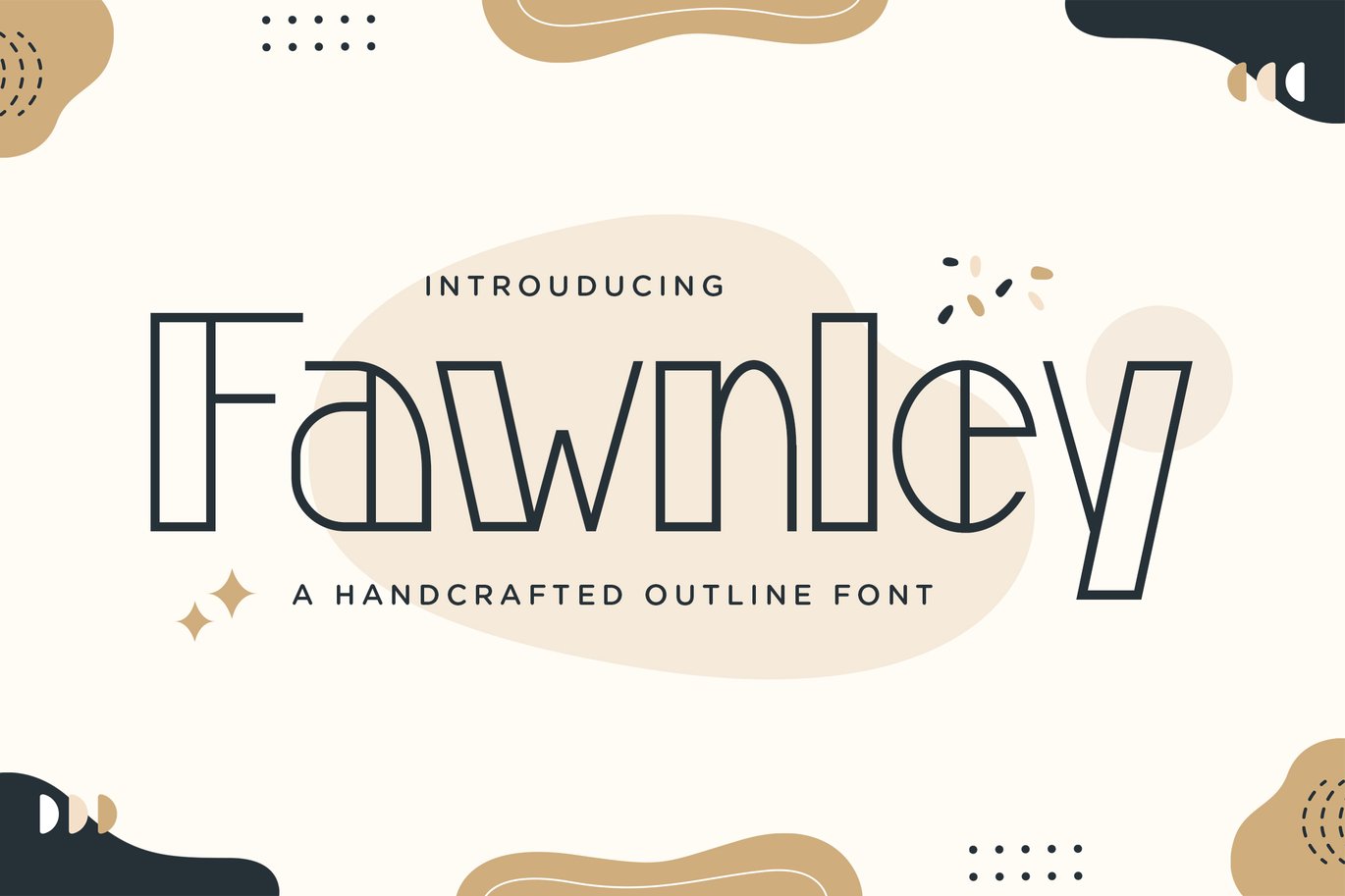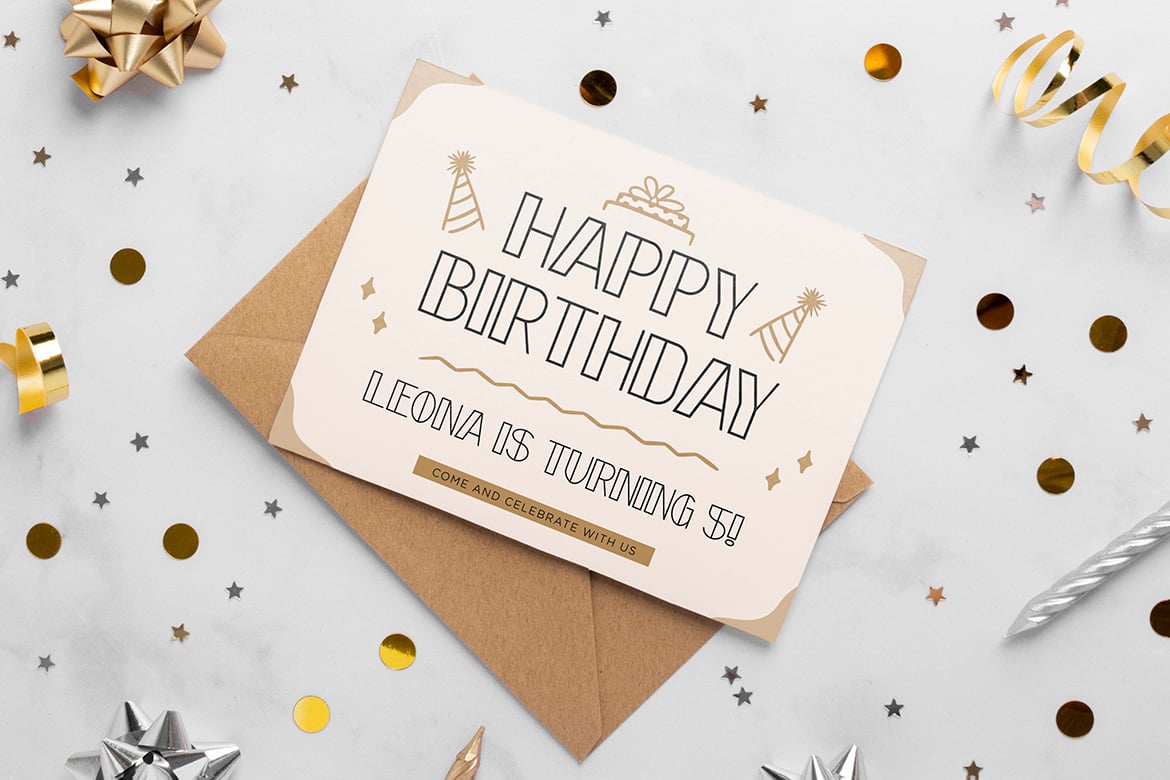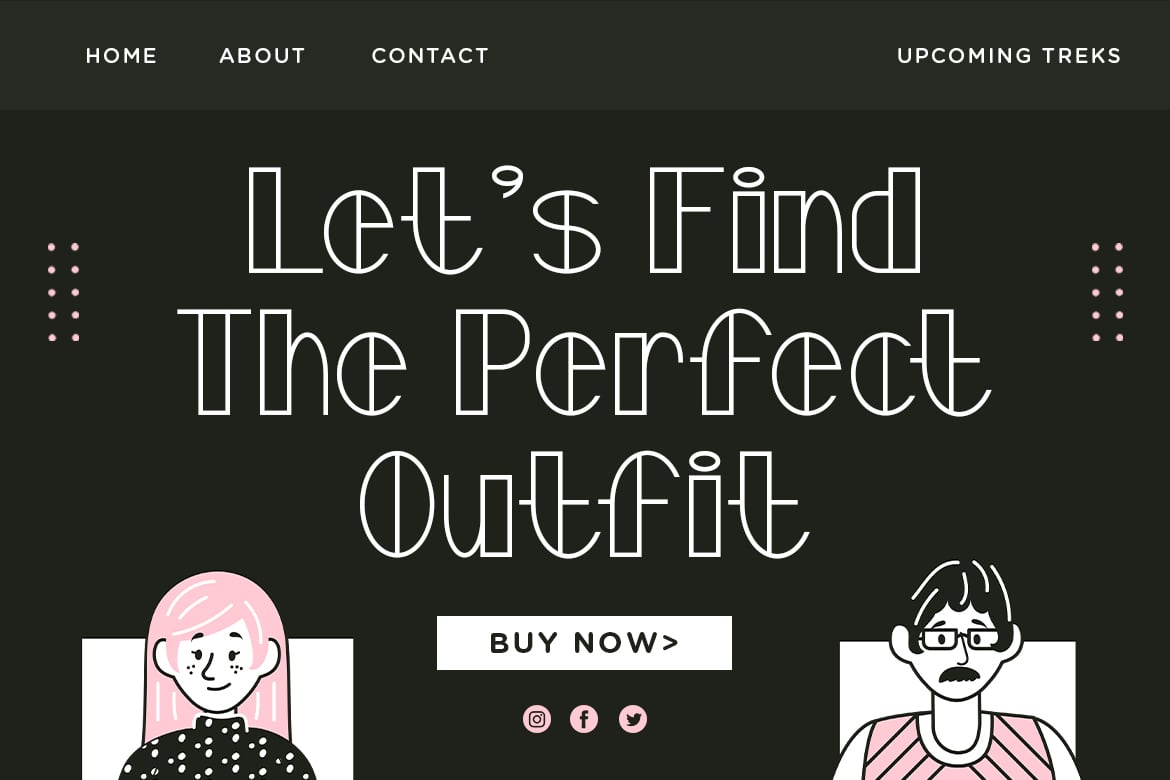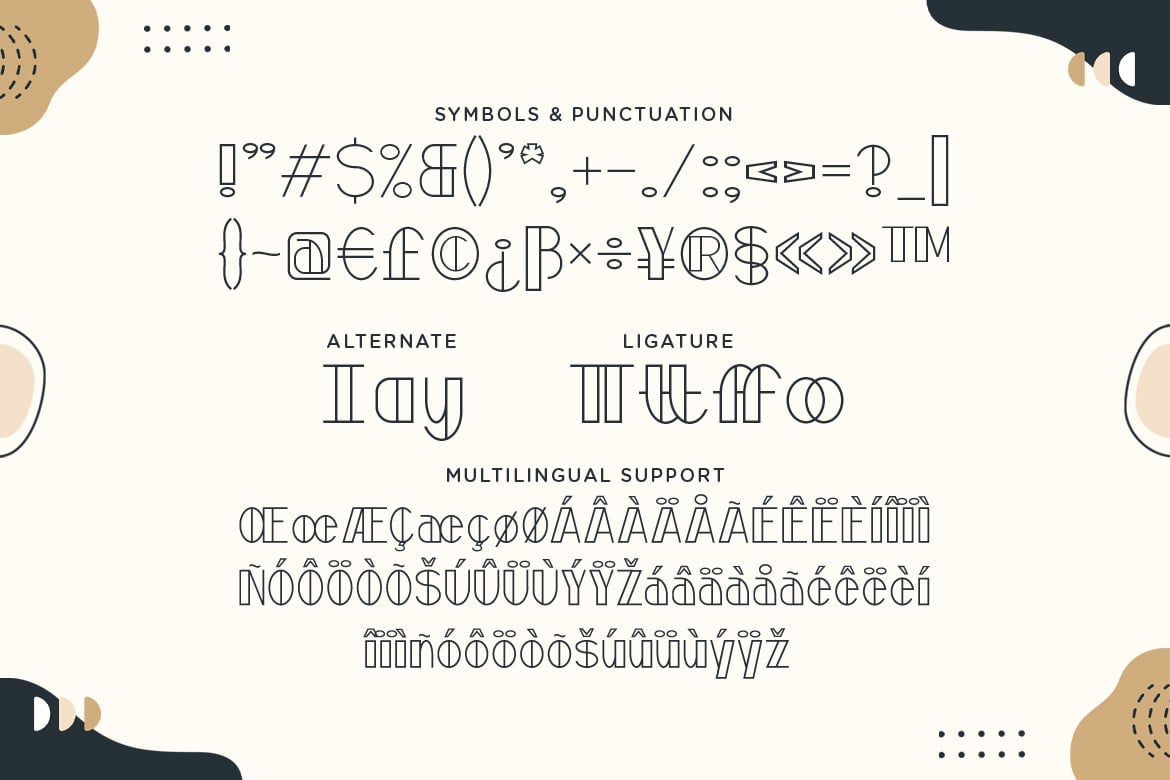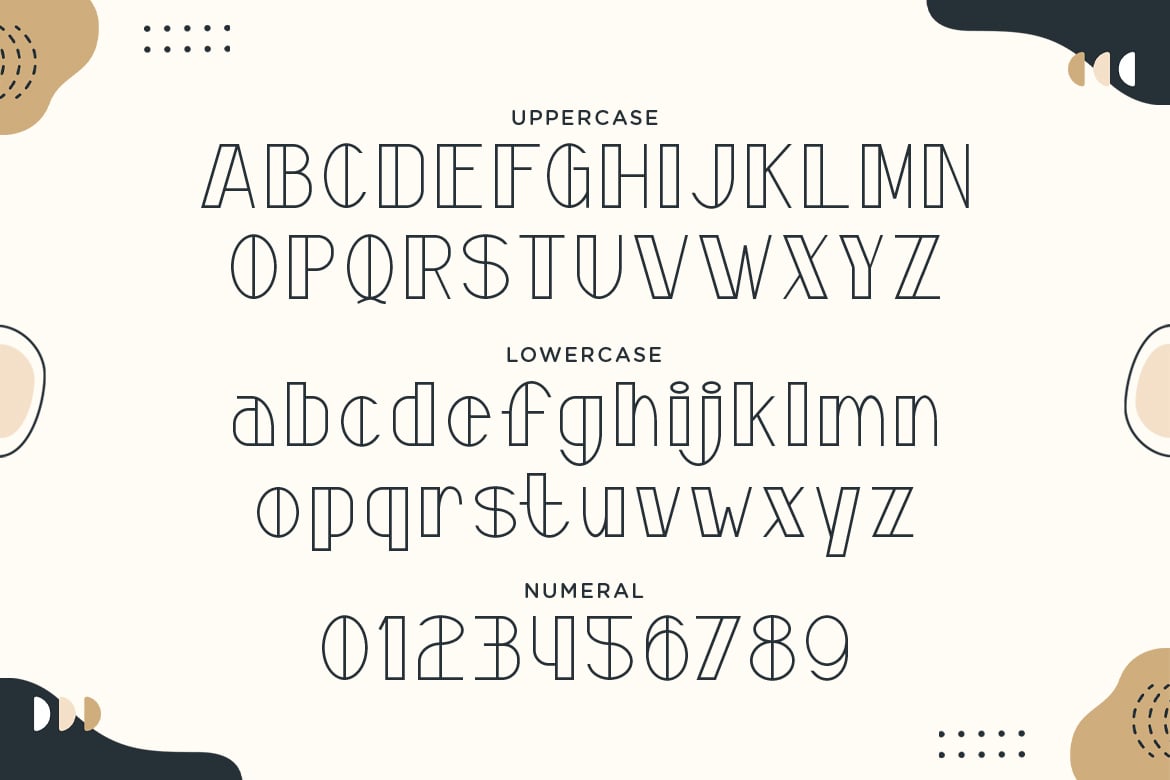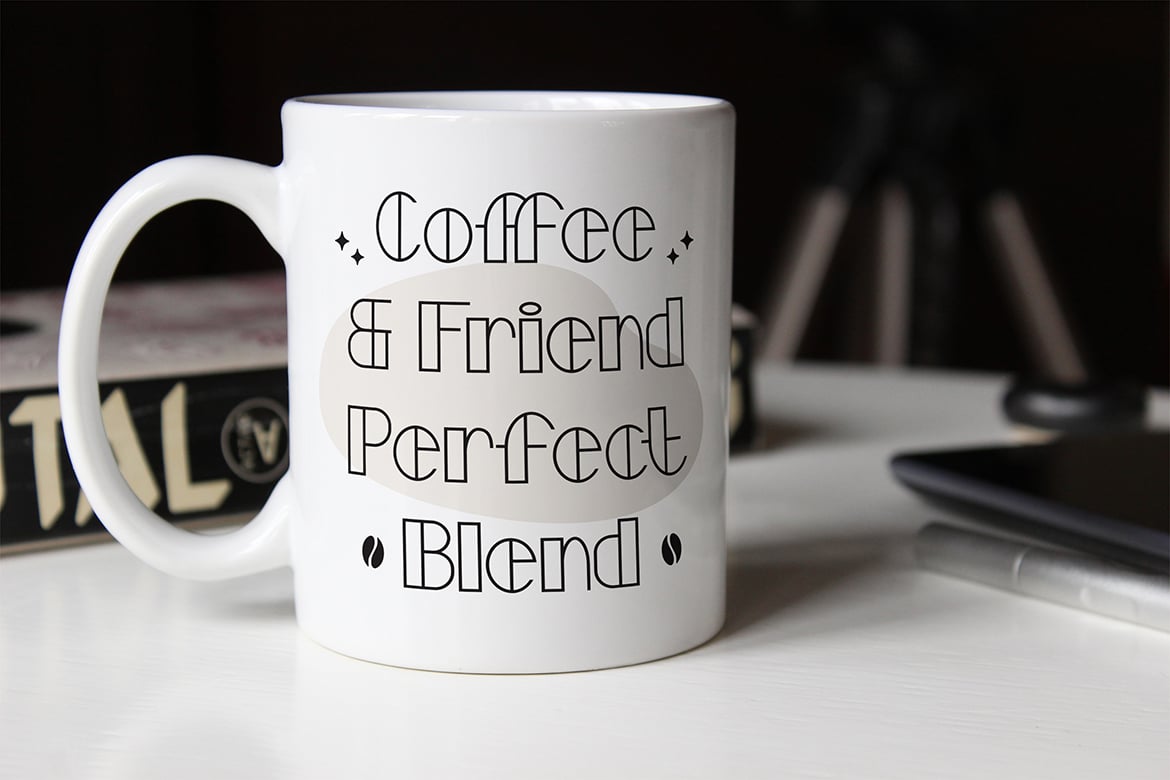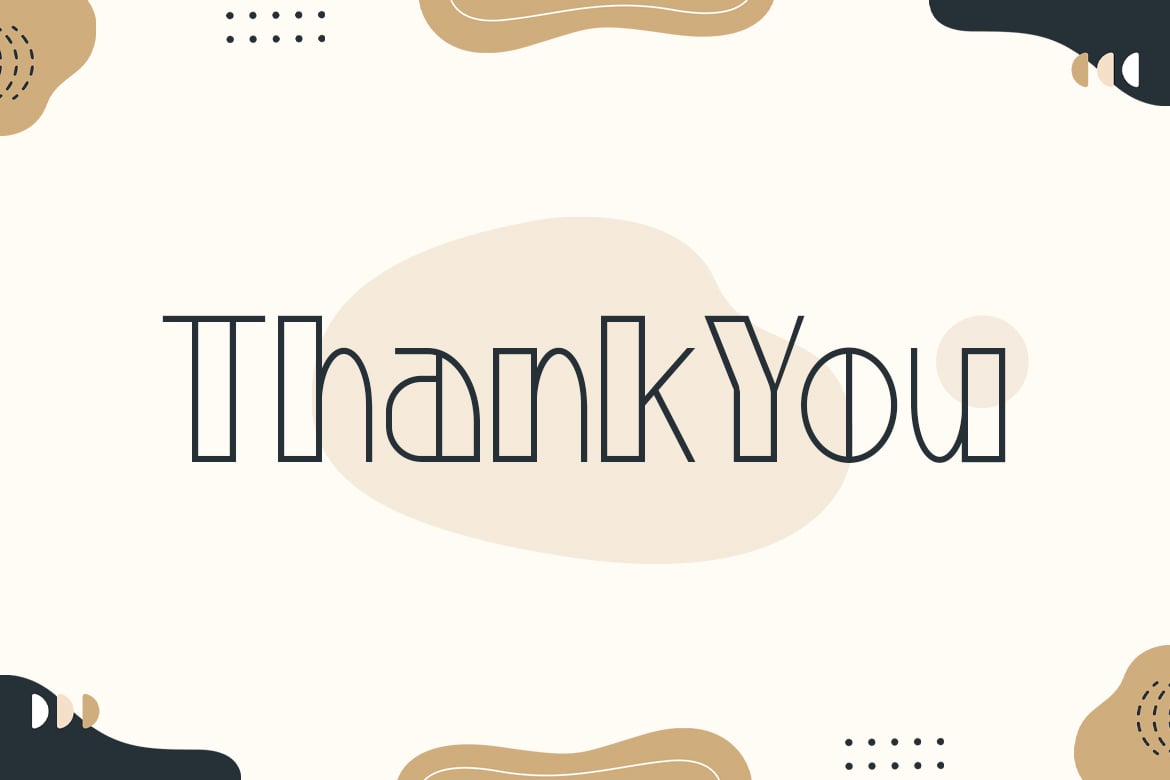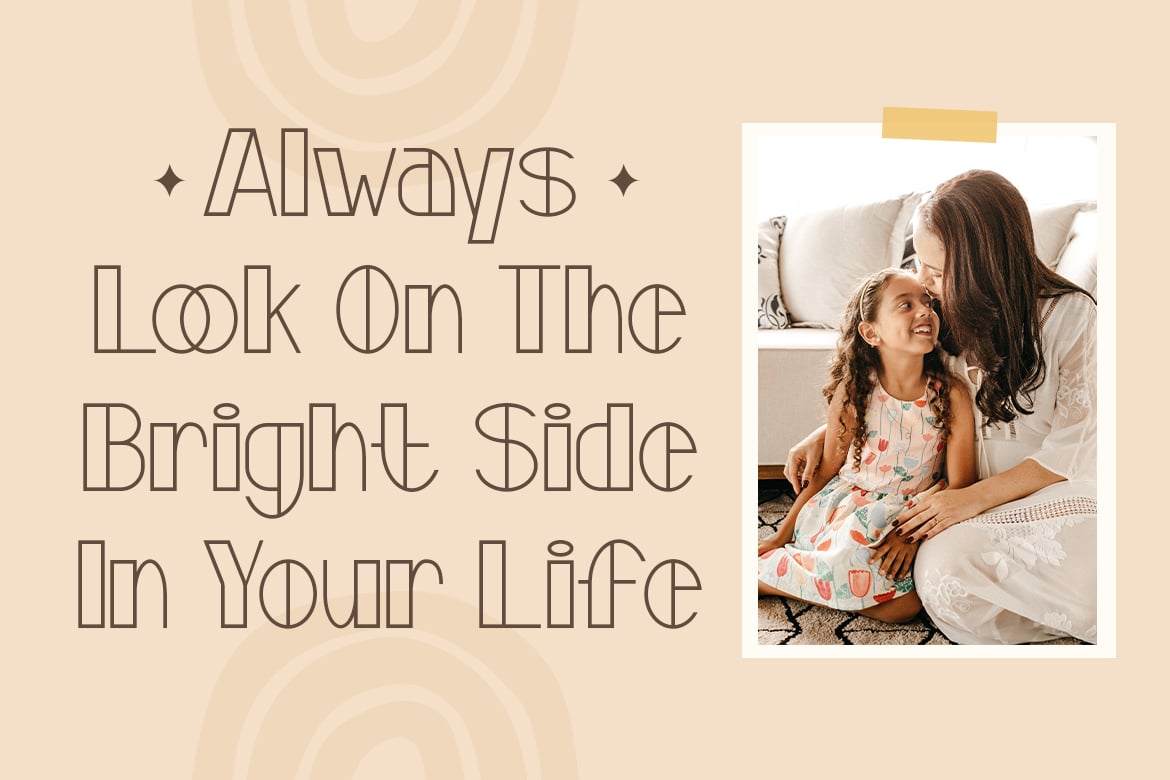
Fawnley – A Handcrafted Outline Font
Introducing “Fawnley” – a handcrafted outline font that adds a touch of artisanal charm and rustic elegance to your designs.
With its meticulously crafted outlines and organic textures, “Fawnley” exudes a handmade aesthetic that brings warmth and authenticity to any project. Whether you’re designing logos, packaging, posters, or invitations, this font infuses your creations with rustic charm and unique character.
Embrace the artisanal beauty of “Fawnley” as it effortlessly enhances your designs. With its handcrafted details and versatile style, this font provides endless possibilities for creative expression, ensuring that your projects stand out with handmade flair and rustic elegance.
Step into the world of handcrafted design with “Fawnley” and let your creativity flourish with its rustic charm and artisanal appeal.